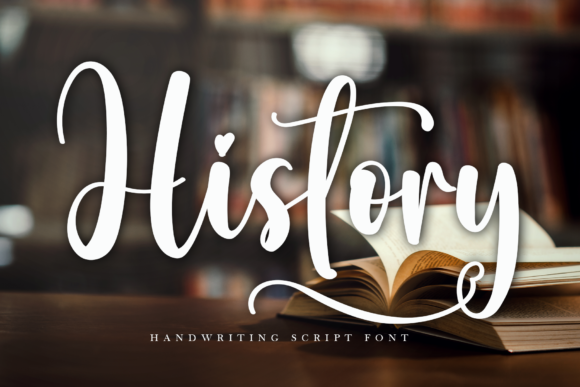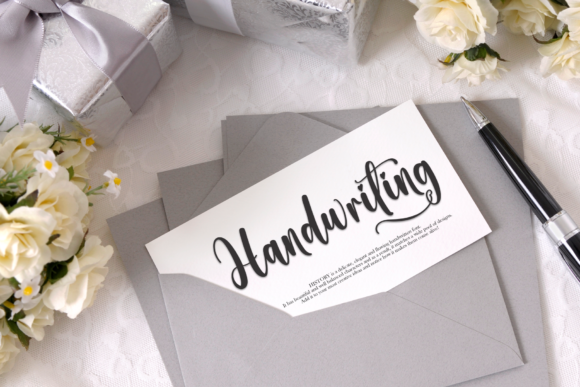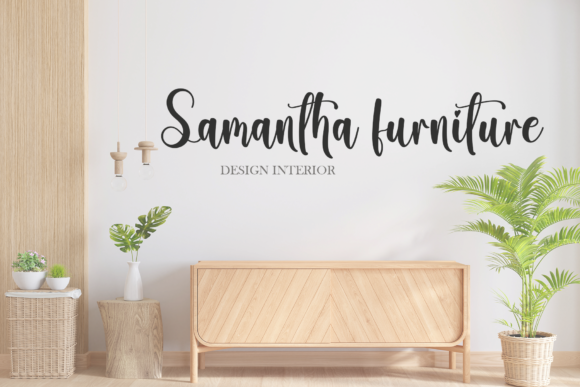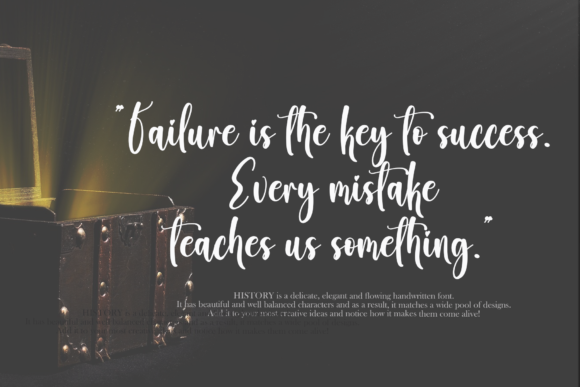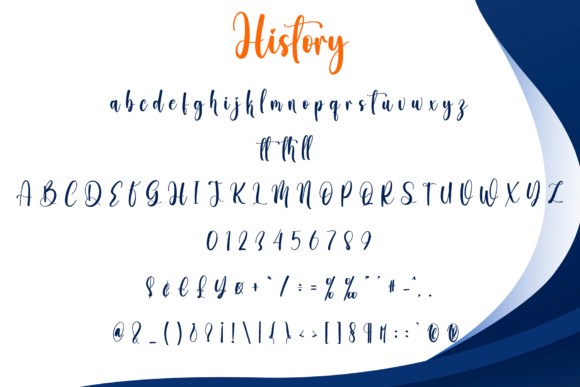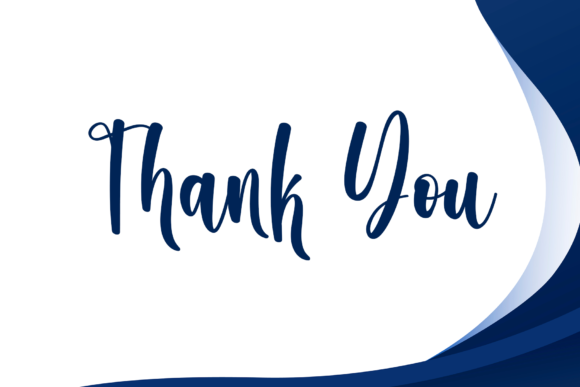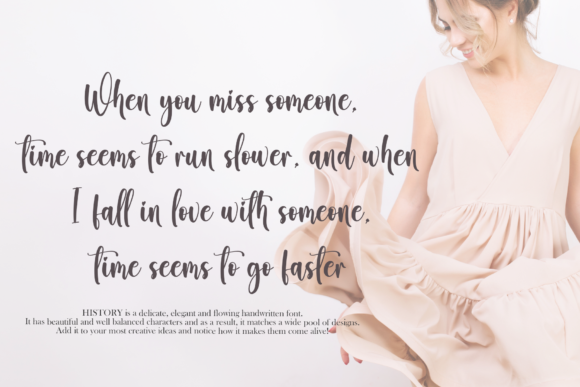
History Font
About History Font
“History” is a stylish handwritten font that brings a contemporary atmosphere and impeccable form to your projects, drawing inspiration from timeless classic calligraphy. With a balanced and varied design, this font was meticulously crafted to elevate the beauty of your creations, adding a touch of sophistication and elegance.
The contemporary vibe of “History” makes it a versatile choice for a wide range of design endeavors. Whether you’re working on branding, invitations, or any project that demands a stylish touch, this font provides a modern and refined aesthetic.
Imagine “History” gracing elegant invitations, where its timeless calligraphic inspiration enhances the overall design. The font’s impeccable form contributes to a sense of sophistication, creating invitations that are both classic and contemporary.
In branding projects, “History” becomes a distinctive choice, elevating your visual identity with its stylish handwritten script. The font’s balanced and varied characters add a unique flair, ensuring your brand stands out with a touch of timeless elegance.
The versatility of “History” extends to various design contexts, allowing it to adapt seamlessly to your creative vision. Its contemporary atmosphere makes it well-suited for projects that require a modern and stylish typography solution.
As you incorporate “History” into your design projects, let its stylish handwritten charm enhance the beauty of your creations. Whether you’re aiming for a classic or contemporary look, this font serves as a refined tool in your typography arsenal, making your projects visually appealing and memorable.